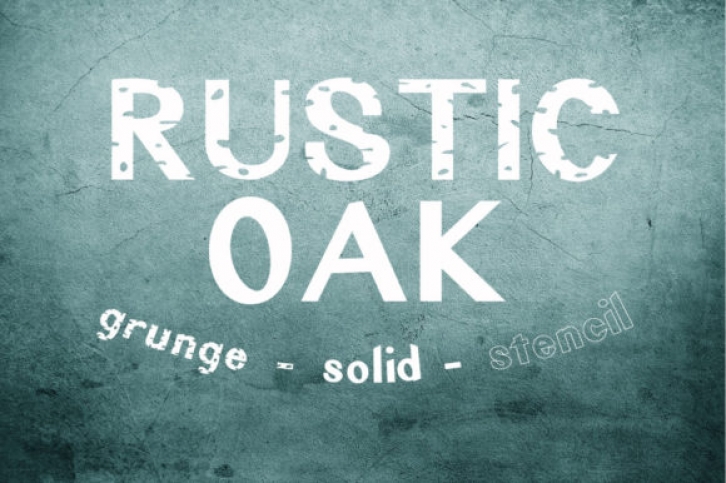
The Rustic Oak is a three font family that you are going to love for all of your farmhouse and distressed designs! These fonts are perfect for sign making. Use the Grunge version to cut vinyl with and apply to a sign (whether you’re only applying the vinyl for the finished project, or using it as a stencil!) or use the outlined stencil font, ready for you to use to paint your signs with. There are endless possibilities with this set!